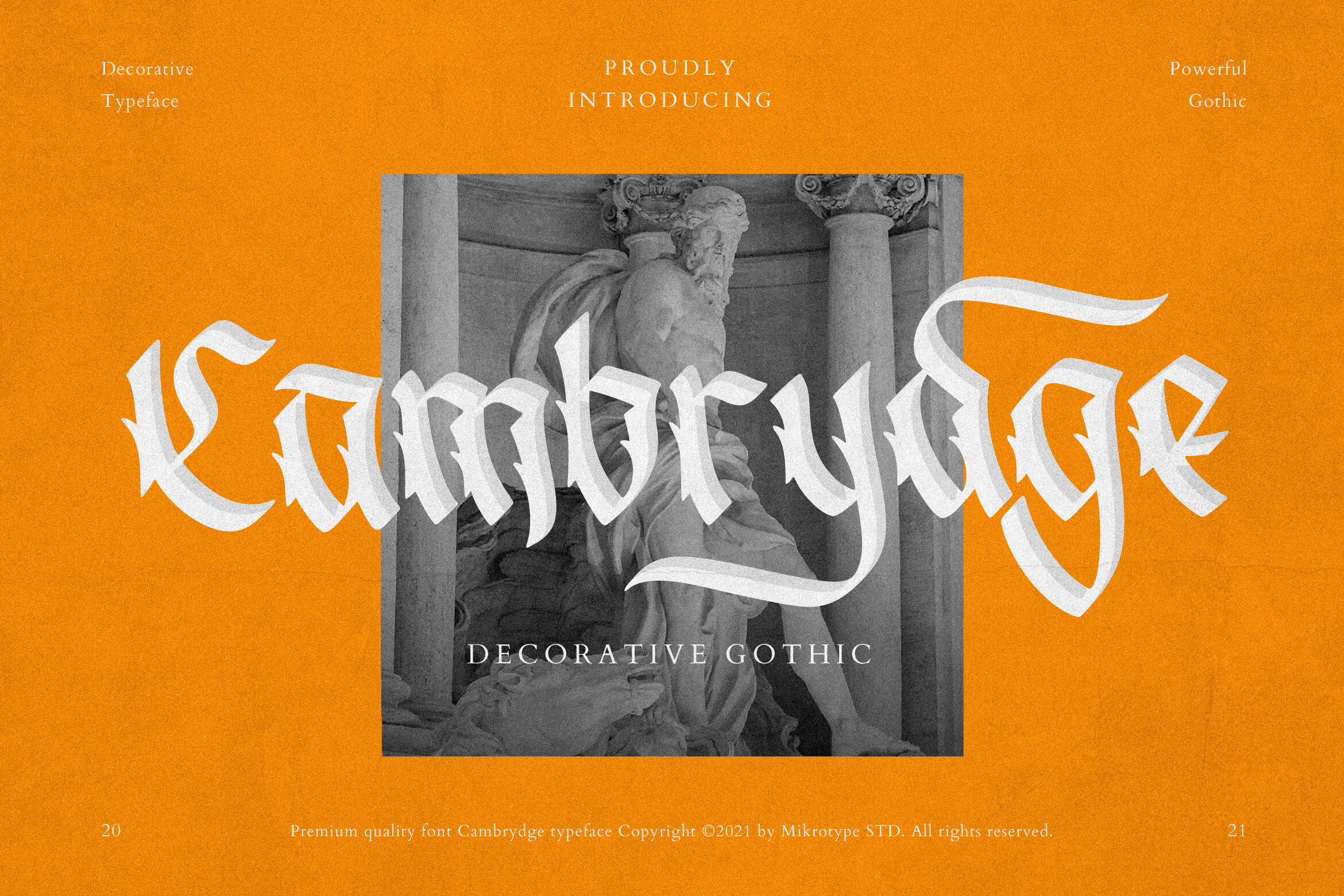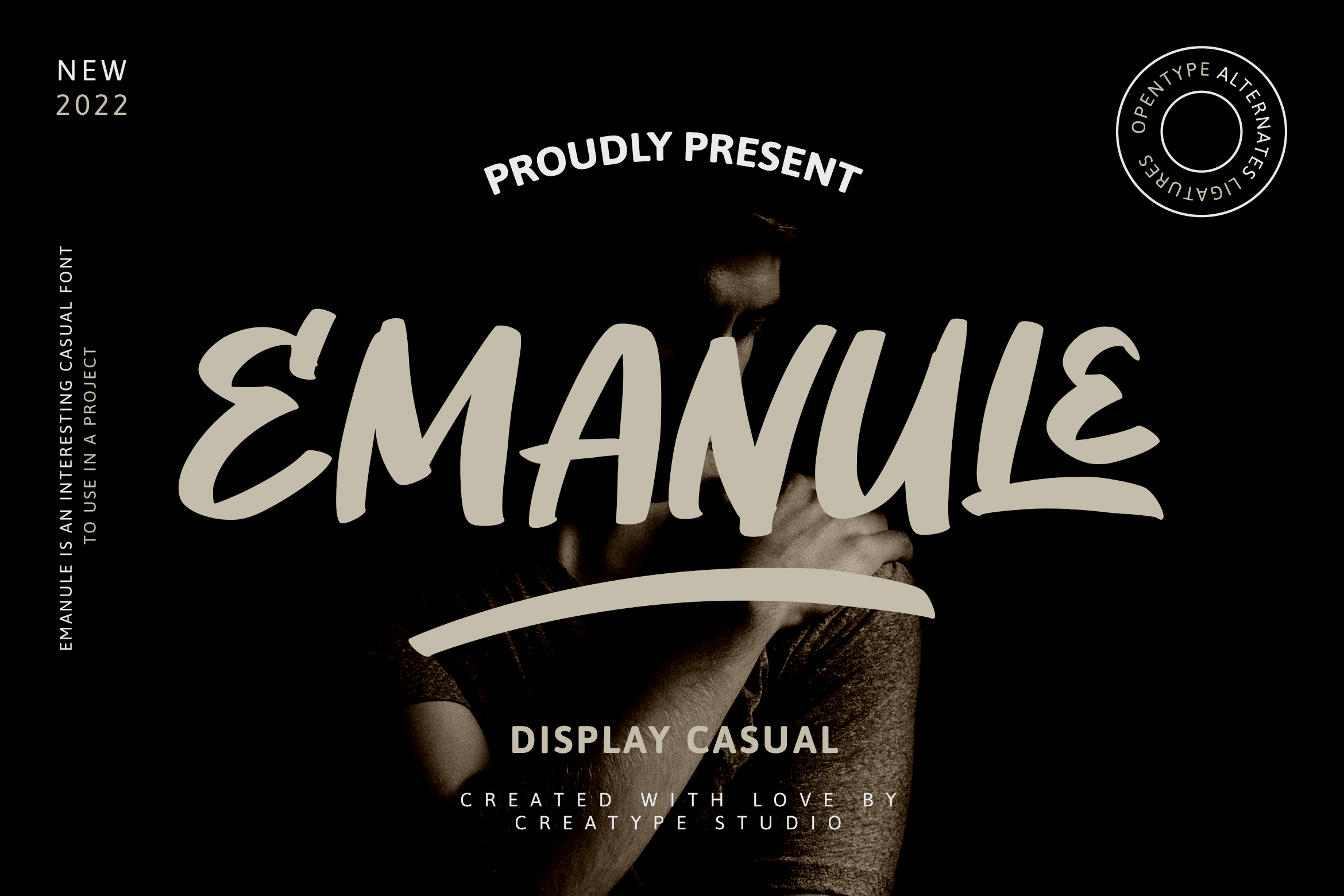
Streetwear fonts play an important role in delivering the style and personality of a design. In streetwear culture, the right typeface can reflect boldness, creativity, and urban energy. According to Ja Dotte Design, the font you choose can shape how people feel about your brand, whether it’s cool, edgy, or high-end.
This article features 16 font choices that are stylish, expressive, and perfect for designers working on fashion labels, street café branding, or creative campaigns.
• Streetwear fonts define a brand’s personality and visual identity.
• Each font brings a unique style, ranging from gothic to playful, to match various streetwear aesthetics.
• The following fonts are ideal for apparel designs, logos, posters, and branding with strong visual impact.
1. Harllem
With the ’90s trend making a bold return, Harllem embraces that nostalgic vibe effortlessly. This typeface offers a retro yet modern feel, making it a great choice among fonts for streetwear. It’s perfect for branding auto garages, skate stores, or projects that need a standout look.
2. Mattador
The go-to typeface for designs with a dynamic atmosphere is Mattador, which offers vintage elegance with a contemporary edge. It’s a standout choice for party flyers, handcrafted clothing labels, or anywhere you want to spark interest and style.
3. Kuattro
Kuattro brings retro rhythm and playful energy, perfect for the streetwear vibe. It makes colors pop and adds a cool vintage feel with a modern twist. Great for denim tags, streetwear logos, or anything bold and fun.
4. Warlock
Warlock doesn’t whisper; it shouts. This bold display font owns the streetwear-fonts look with sharp edges and fierce style. From oversized hoodies to bold vintage posters, Warlock brings serious heat. If your brand’s all about making noise and turning heads, this font’s got your back.
5. Emanule
5. Emanuele
Emanule combines a bold attitude with a touch of fun, creating a typeface that feels right at home in the heart of the city. It brings out an adventurous, street-smart vibe, perfect for urban fashion lines and a skate crew merch. This font adds edge and energy wherever it lands.
6. Molland
Molland brings a lively retro soul to your design, blending vintage charm with a bold, upbeat feel. It’s the ideal choice for graphic tees, bucket hats, or beach-inspired collections while adding a wave of nostalgia to keep things fresh and eye-catching.
7. Betthelem
Bethlehem offers a unique and visually appealing touch to any design. Its sparkling accents bring charm, especially when combined with a bold and simple typeface. It is regarded as one of the best streetwear fonts and is a good option for lighthearted apparel drops and street-style branding that require a polished, eye-catching appearance.
8. Curtis
Curtis is a striking modern typeface that blends boldness with playful character, making it perfect for brands that dare to be different. From stylish to street-style fashion, Curtis delivers standout visuals with attitude and flair.
9. Sunblock
Sunblock channels bold retro energy with a playful, sun-soaked vibe. Designed to amplify your creative work, it’s the perfect choice for It’s a solid pick for statement hoodie prints and street-style posters.
10. Skulrock
Skulrock is a kind of rugged display font that features the energy of rock and roll. If you’re on the hunt for streetwear fonts that add edge and power to your visuals, this one’s a top pick for concert-inspired drops, men’s street fashion, or bold sportswear graphics.
11. Glitcher
Glitcher delivers a sharp, tech-inspired look with its clean sans-serif style and glitch effect. Ideal for bold visuals, this font brings a modern punch to streetwear designs or fashion promos. If you’re aiming for a cutting-edge, eye-catching aesthetic, Glitcher’s got you covered.
12. Salatiga
Its chunky, eye-catching style highlights the energetic side of any design. As one of the must-have streetwear fonts, Salatiga works perfectly for standout projects, especially those inspired by skateboard culture or anything that calls for a youthful, expressive touch.